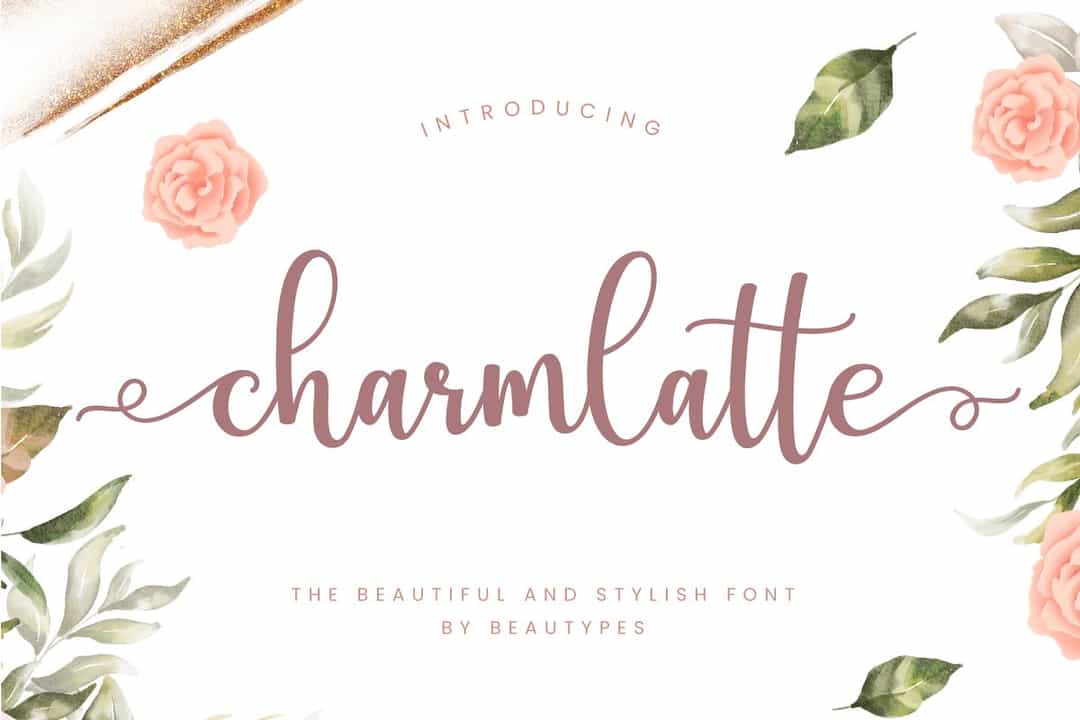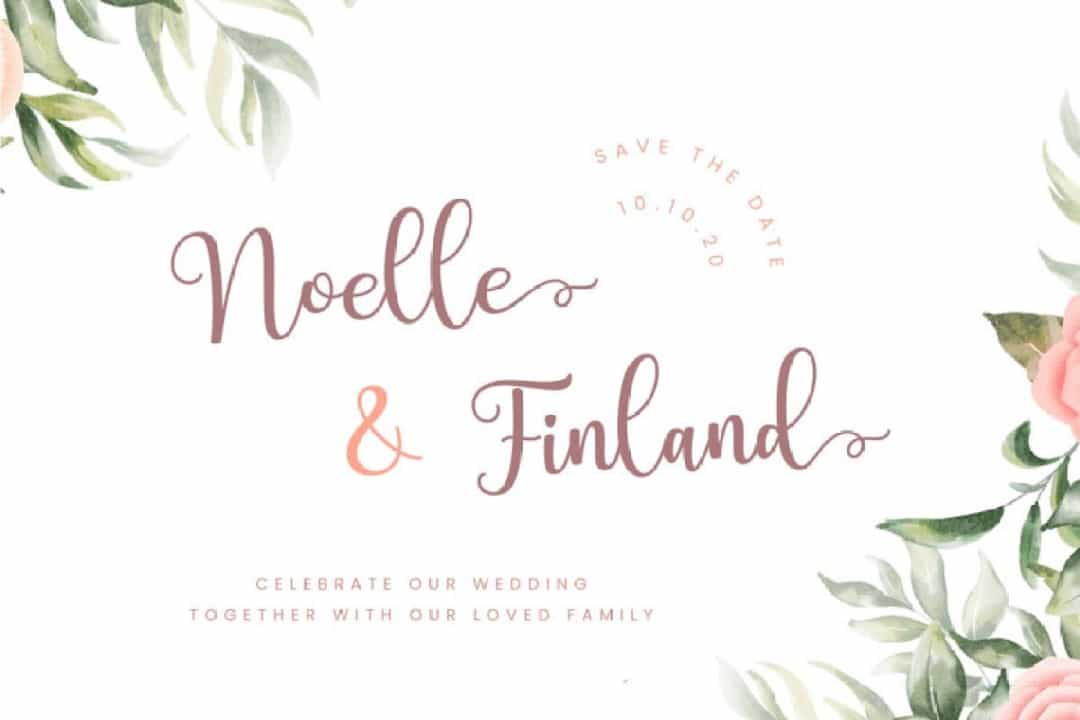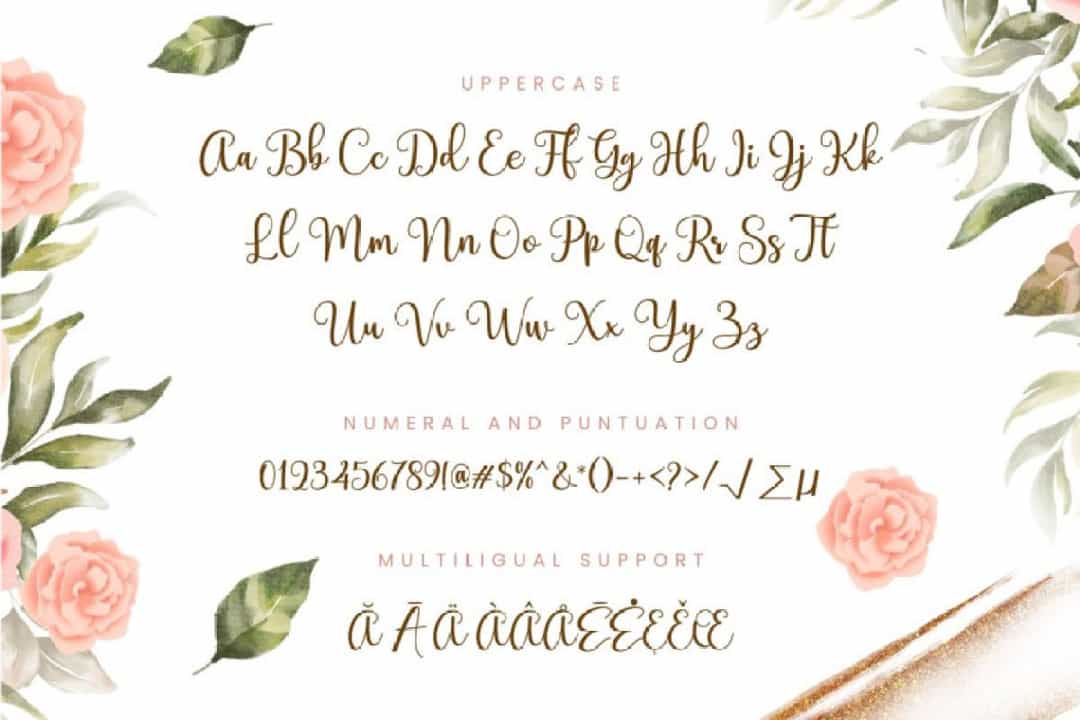
Charmlatte is a beautiful handwritten font with calligraphy touch that has a beautiful starting and ending strokes that give the font a modern look. It has beautiful initial and terminal letters which give a great starting and ending touch to a design, providing a good formal and casual layout ideal for logos, brands, social media ads, titles of posts on social media ads, labels for products, photos, watermarks, events, magazines, or websites among other designs.